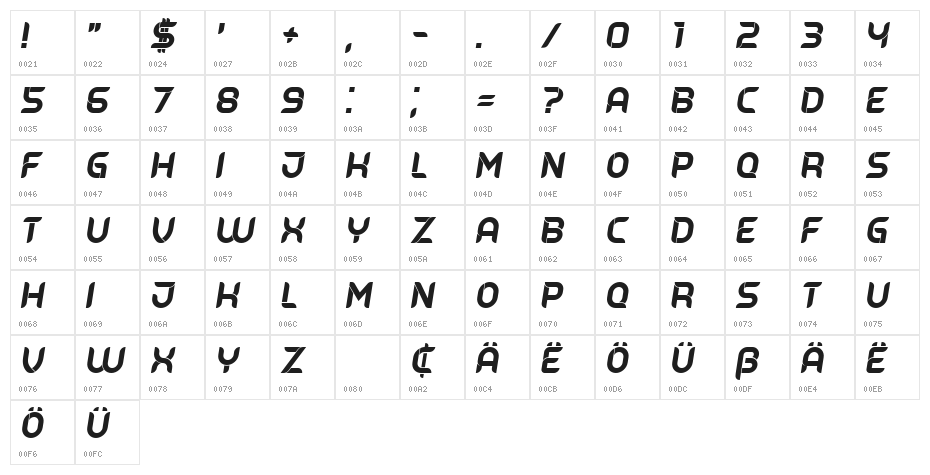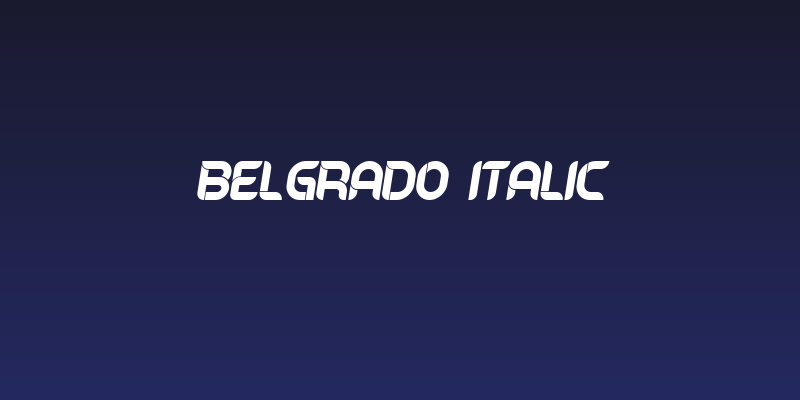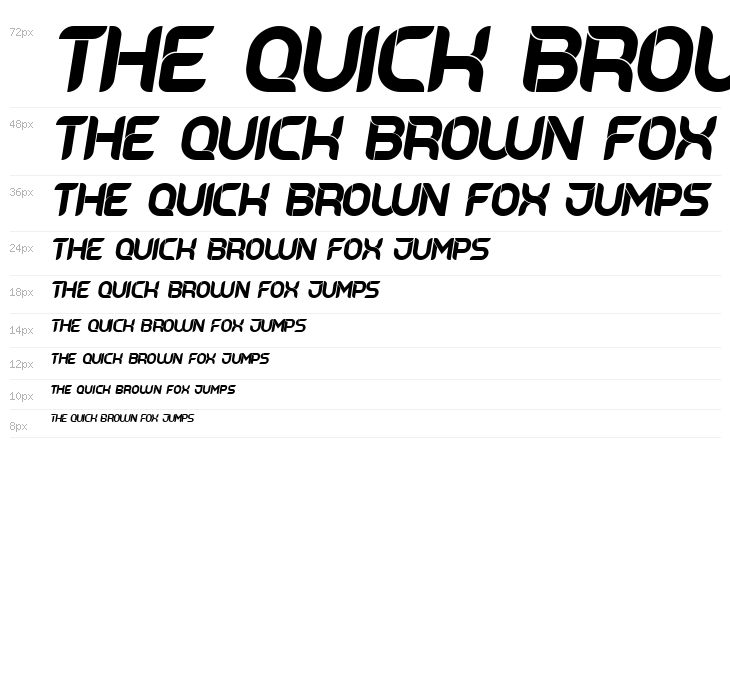
Belgrado Italic Font
Belgrado Italic Description
This font features a bold, italicized style with a modern and futuristic aesthetic. The characters are designed with a distinct slant, giving them a dynamic and forward-moving appearance. The strokes are thick and consistent, providing a strong visual impact. The font maintains a geometric structure, with rounded edges that soften the overall look. The character spacing is tight, enhancing the compact and cohesive feel of the text. This font is well-suited for projects that require a contemporary and energetic vibe, making it ideal for branding, advertising, and digital media.